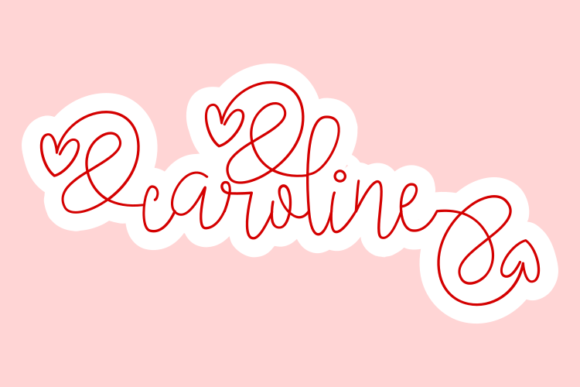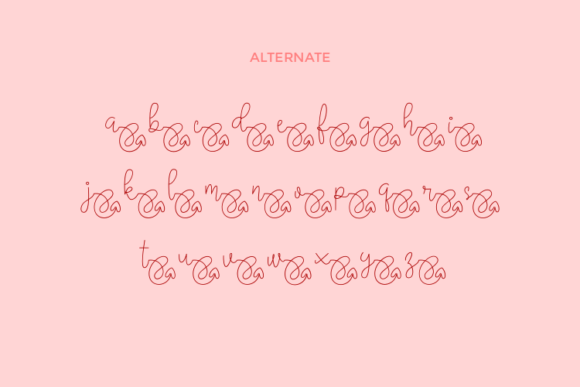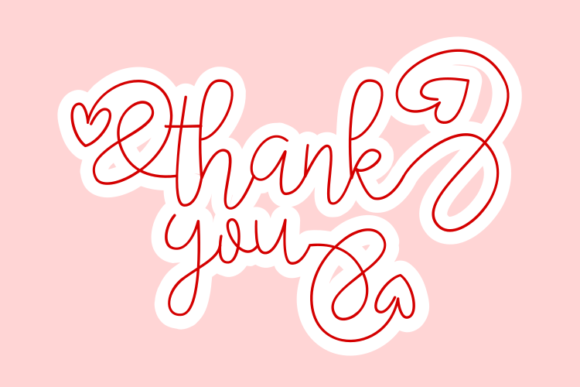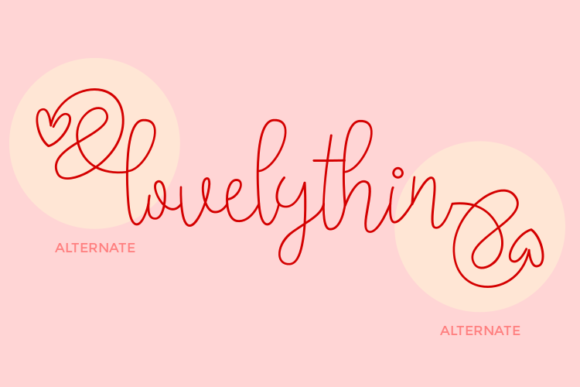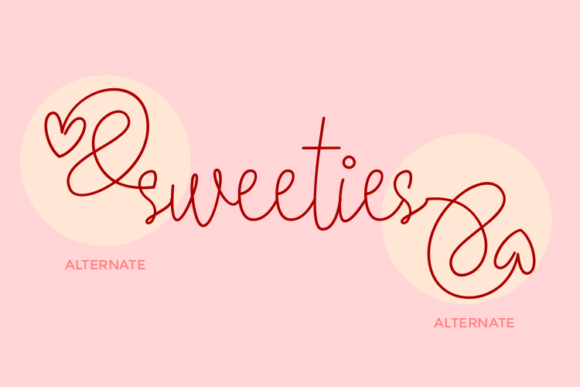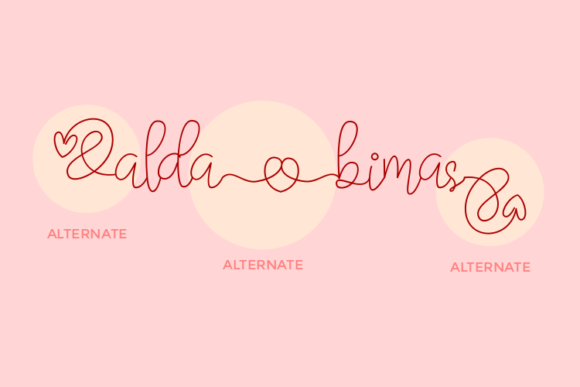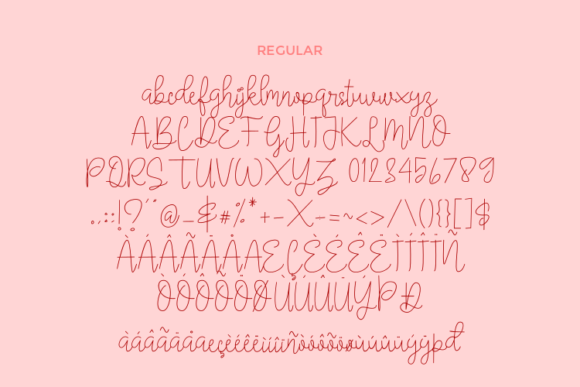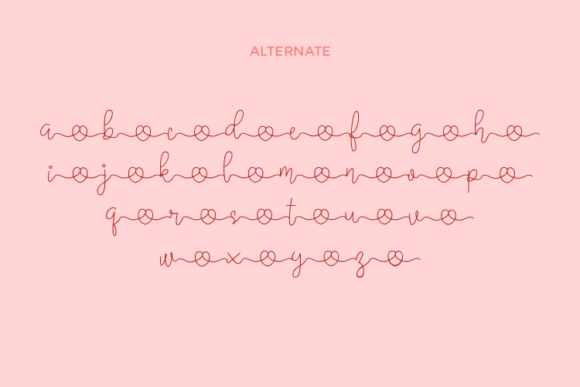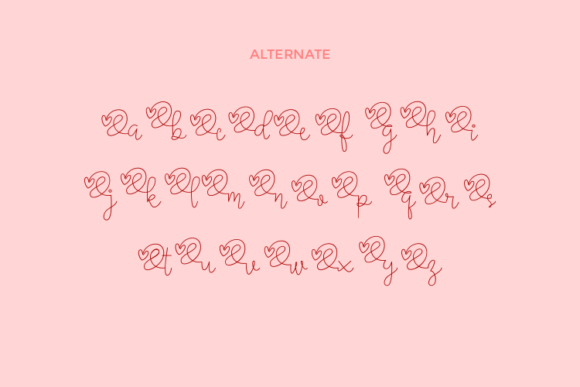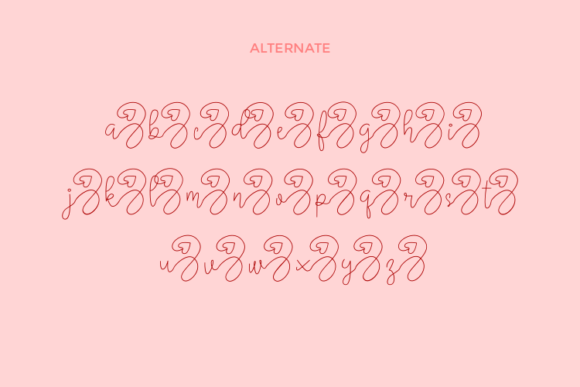
Lovelythin Font
About Lovelythin Font
Lovelythin is a beautiful handwritten font that exudes elegance and sophistication. Its delicate and light style adds a touch of grace to any design project. The well-balanced letters and smooth curves make Lovelythin a true masterpiece.
With Lovelythin, you can add a refined and timeless feel to your designs. Whether you’re creating wedding invitations, branding materials, logos, or social media graphics, this font will elevate your work and leave a lasting impression.
The PUA encoding of Lovelythin ensures easy access to all the glyphs and swashes, allowing you to customize and personalize your designs with ease. You can create unique combinations and add decorative elements to enhance the beauty of your typography.
The versatility of Lovelythin allows it to be used in various contexts. Its elegant and clean look makes it suitable for both formal and informal designs. Whether you’re aiming for a romantic and whimsical style or a minimalist and modern approach, Lovelythin can adapt to your creative vision.